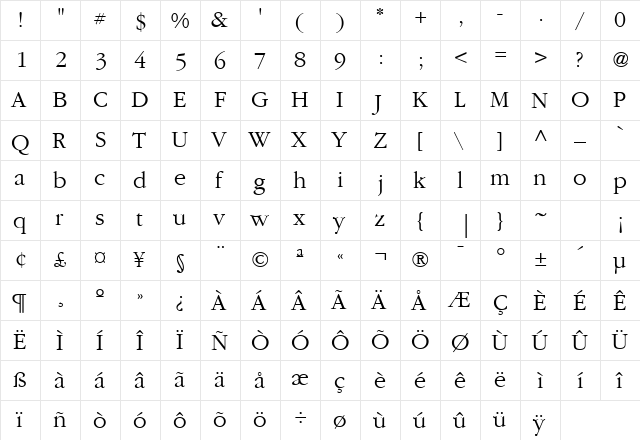
GarryMondrian3 LightSH
Design Context for GarryMondrian3 Typeface
GarryMondrian3 offers clean, dependable letterforms without strong stylistic allegiance, making it a practical choice for designers who need flexibility. The delicate stroke weight brings airiness and refinement to layouts.